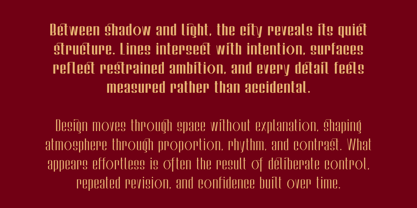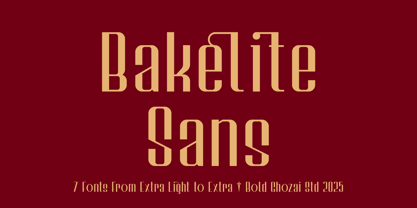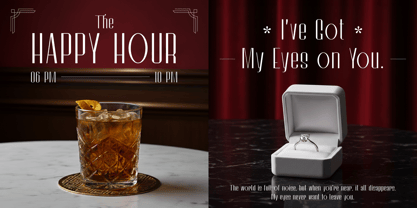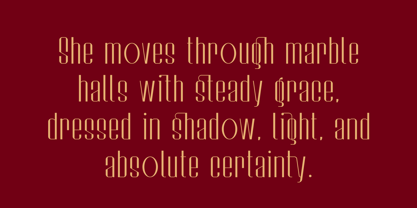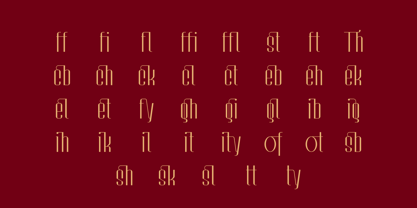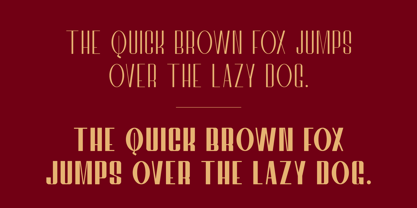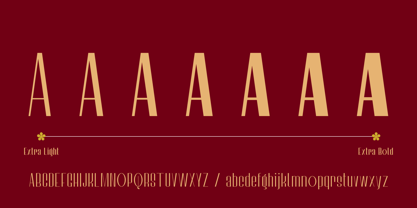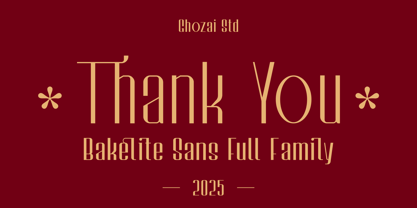
Bakelite Sans
by Ghozai Studio
The Bakelite Sans Font Family was designed by Manzur Ghozaali and published by Ghozai Studio. Bakelite Sans contains 7 styles and family package options. More about this family
Bakelite Sans is a tall and elegant slab/serif font available in seven weight styles, ranging from extra light to extra bold, and is inspired by the classic era / art deco era. Its design features a combination of thin curves and straight stems, creating high contrast and adding personality to the font. Bakelite Sans also includes a wide range of ligatures and alternate styles, providing more options for your design needs. With its diverse range of styles, Bakelite Sans is suitable for various design projects, including luxury applications such as hotel logos, restaurant menus, posters, web applications, and wedding invitations, as well as for fashion-related designs, band posters, headlines, and more.
Designers: Manzur Ghozaali
Foundry: Ghozai Studio